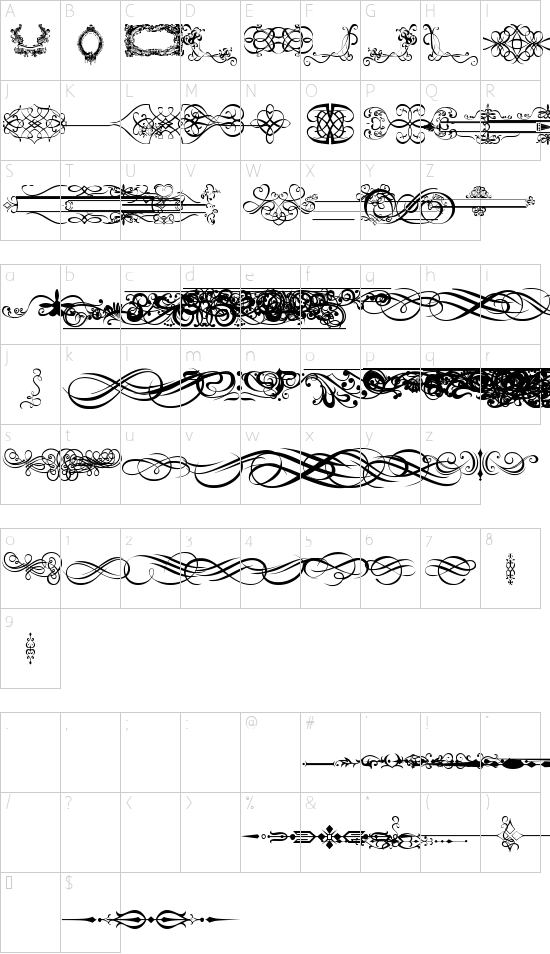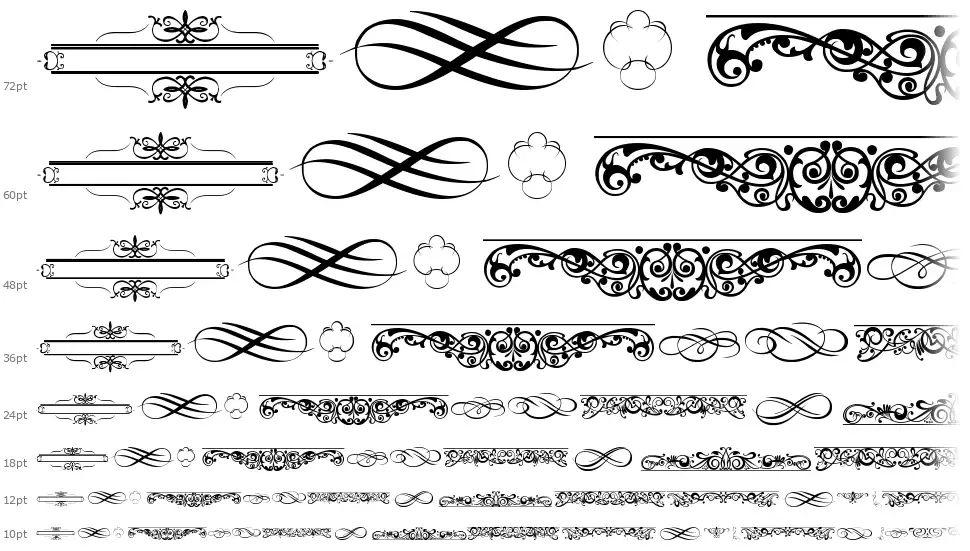
Ornaments Labels And Frames Font . A great choice for highlighting your design elements. ornaments labels and frames font belongs to regular subfamily. ornament labels and frames is a free font for personal use. ornaments labels and frames font free download. ornament labels and frames is a free font for personal use. The font is licensed as free for personal use. Moreover, you can embed it to your website. download and install the ornaments labels and frames font for free from ffonts.net. This font has been downloaded 600+ times. ornaments labels and frames is a dingbats, shapes font designed by zanatlija.
ornaments labels and frames font free download. ornament labels and frames is a free font for personal use. A great choice for highlighting your design elements. download and install the ornaments labels and frames font for free from ffonts.net. This font has been downloaded 600+ times. Moreover, you can embed it to your website. The font is licensed as free for personal use. ornaments labels and frames is a dingbats, shapes font designed by zanatlija. ornaments labels and frames font belongs to regular subfamily. ornament labels and frames is a free font for personal use.
Ornaments Labels And Frames Font ornament labels and frames is a free font for personal use. A great choice for highlighting your design elements. The font is licensed as free for personal use. ornaments labels and frames is a dingbats, shapes font designed by zanatlija. ornaments labels and frames font belongs to regular subfamily. download and install the ornaments labels and frames font for free from ffonts.net. Moreover, you can embed it to your website. ornament labels and frames is a free font for personal use. This font has been downloaded 600+ times. ornaments labels and frames font free download.